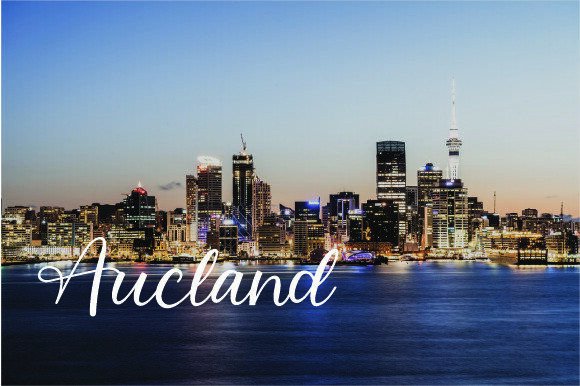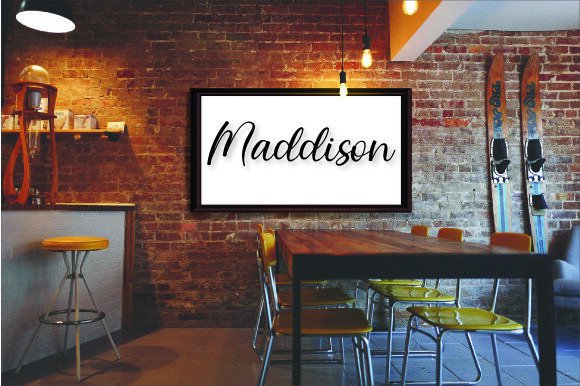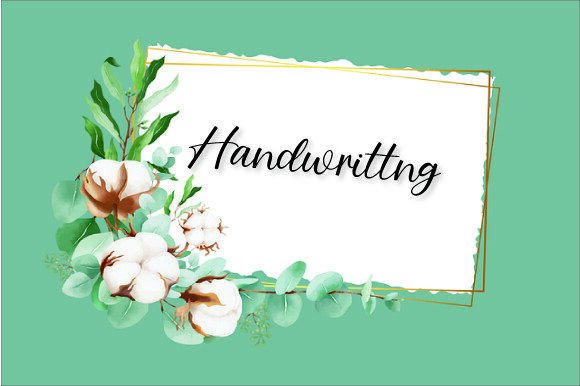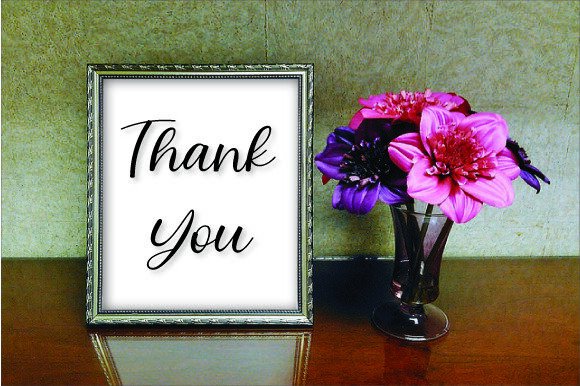
Introducing Grande Font: The Sweet and Elegant Handwritten Font
Are you looking for a font that can add a touch of elegance and romance to your designs? Look no further than Grande Font, a beautiful sweet and cursive handwritten font. With its gentle and flowing curves, Grande Font is perfect for a variety of design projects, from branding and logos to wedding materials and greeting cards.
The Characteristics of Grande Font
Grande Font is a unique and eye-catching font that boasts a range of characteristics that make it perfect for designers and crafters. Some of its key features include:
- Sweet and Cursive Handwritten Style: Grande Font has a beautiful, flowing script that is reminiscent of handwritten cursive. Its sweet and elegant style makes it perfect for designs that require a touch of sophistication.
- Gentle and Elegant Curves: The font features gentle curves and smooth lines that give it a soft and romantic feel. This makes it ideal for designs that require a feminine touch.
- Versatile and Adaptable: Grande Font is highly versatile and can be used on a wide range of design projects, from logos and branding to wedding materials and greeting cards.
Uses for Grande Font
Grande Font is a highly versatile font that can be used on a wide range of design projects. Some of the most popular uses for this font include:
- Branding and Logos: Grande Font is perfect for creating elegant and sophisticated brand identities. Its unique and eye-catching style makes it ideal for logos, business cards, and other marketing materials.
- Wedding Materials: The font’s romantic and elegant style makes it perfect for wedding designs, including invitations, programs, and decorations.
- Greeting Cards: Grande Font is also great for creating beautiful and elegant greeting cards for special occasions, such as birthdays, anniversaries, and holidays.
- Fashion and Lookbooks: The font’s stylish and sophisticated style makes it perfect for fashion designs, including lookbooks, catalogs, and advertisements.
- Marketing and Promotion: Grande Font can also be used for marketing and promotional materials, such as flyers, brochures, and social media graphics.
Why Choose Grande Font?
There are many reasons why Grande Font is a great choice for designers and crafters. Some of the benefits of using this font include:
- Unique and Eye-Catching Style: Grande Font has a unique and eye-catching style that will make your designs stand out from the crowd.
- Elegant and Sophisticated: The font’s elegant and sophisticated style makes it perfect for designs that require a touch of luxury and refinement.
- Highly Versatile: Grande Font is highly versatile and can be used on a wide range of design projects.
- Easily Readable: Despite its elegant and cursive style, Grande Font is easily readable, making it perfect for body text and other applications where legibility is important.
Tips for Using Grande Font
To get the most out of Grande Font, here are a few tips to keep in mind:
- Use it Sparingly: While Grande Font is a beautiful font, it can be overwhelming if used too much. Use it sparingly to add a touch of elegance and sophistication to your designs.
- Pair it with Other Fonts: Grande Font pairs well with other fonts, including sans-serif fonts and serif fonts. Experiment with different pairings to find the one that works best for your design.
- Adjust the Size and Color: To make the most of Grande Font, adjust the size and color to suit your design. A larger size and bold color can make a big impact, while a smaller size and more subdued color can create a more subtle effect.
Grande Font is a beautiful and elegant handwritten font that is perfect for designers and crafters. With its sweet and cursive style, gentle curves, and highly versatile nature, it’s ideal for a wide range of design projects, from branding and logos to wedding materials and greeting cards. Whether you’re looking to add a touch of elegance and sophistication to your designs or simply want a font that is easy to read and looks great, Grande Font is a great choice.